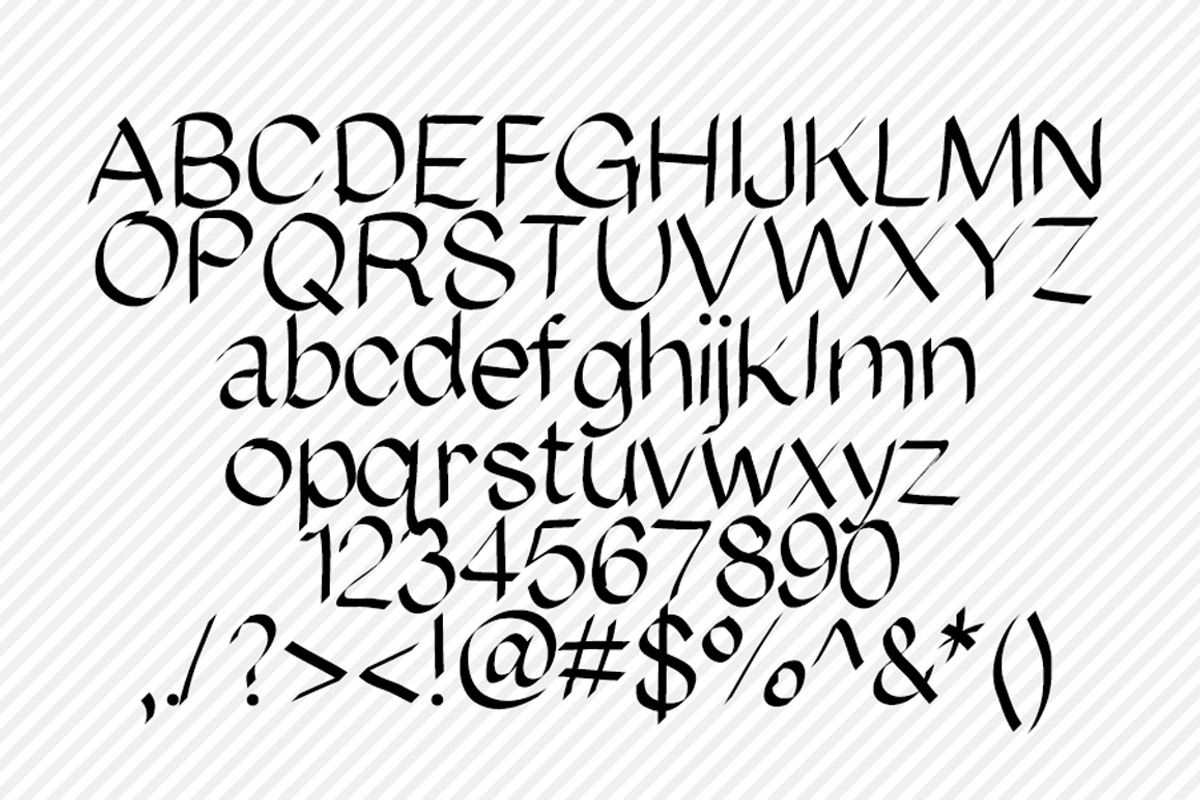
Ribbon Hand Drawn Font
Ribbon Hand Drawn Font by Polka Dot Pixels is a font selected for branding, posters, packaging, typography.
- upper and lowercase letters, numbers and punctuation are included.
Ribbon Hand Drawn Font by Polka Dot Pixels fits naturally into Branding, posters, packaging, typography.